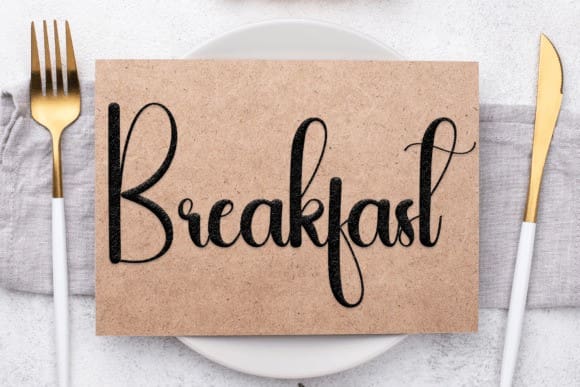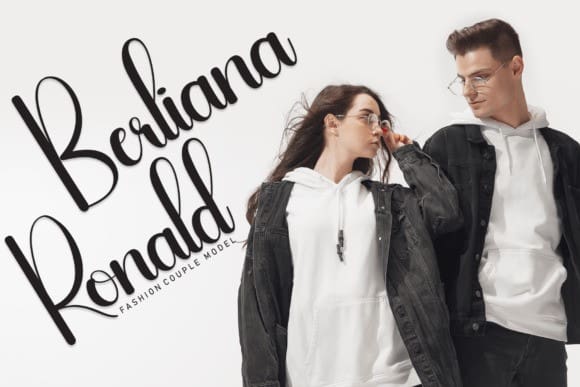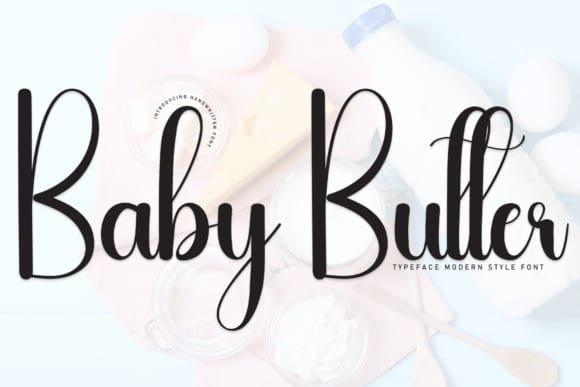
Baby Butter Font
Baby Butter Font is a sweet and friendly handwritten display font. Cute and fun, this font is ideal for writing wedding invitations, cards, or any other design that might need a fun touch!